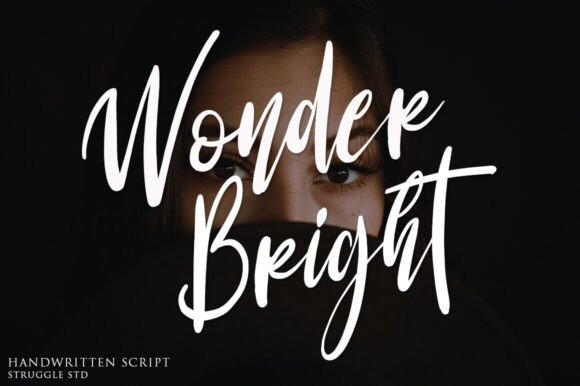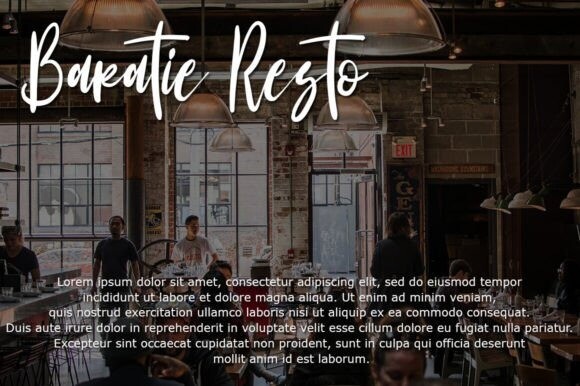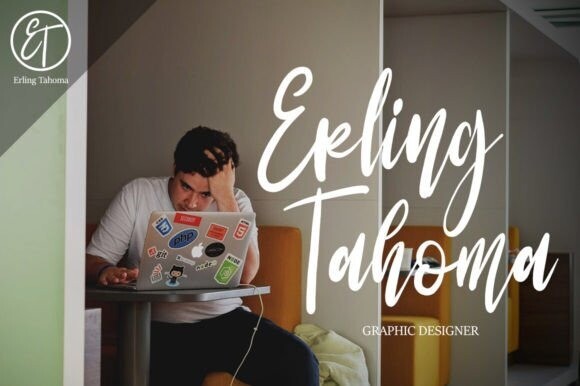
Wonder Bright Font
Wonder Bright Font is a natural handwritten font, this font is perfect for logos, invitations, stationery, wedding designs, social media posts, advertisements, product packaging, product designs, labels, photography, watermarks, special events or anything else.